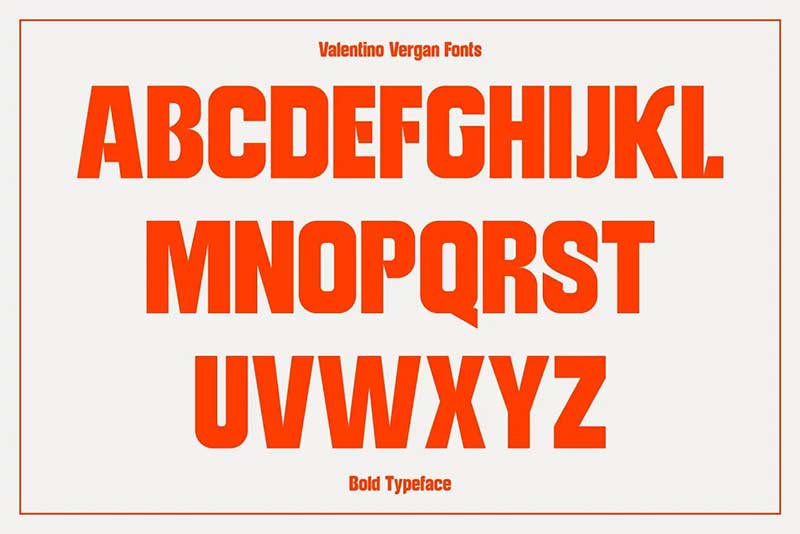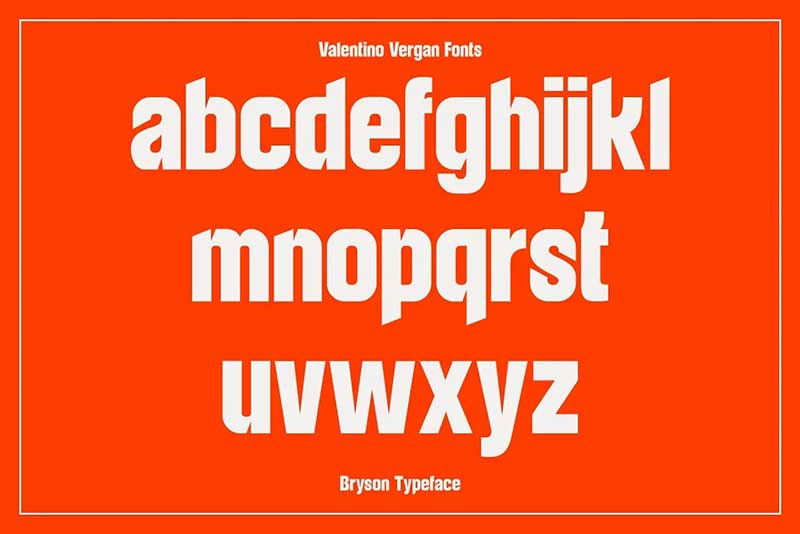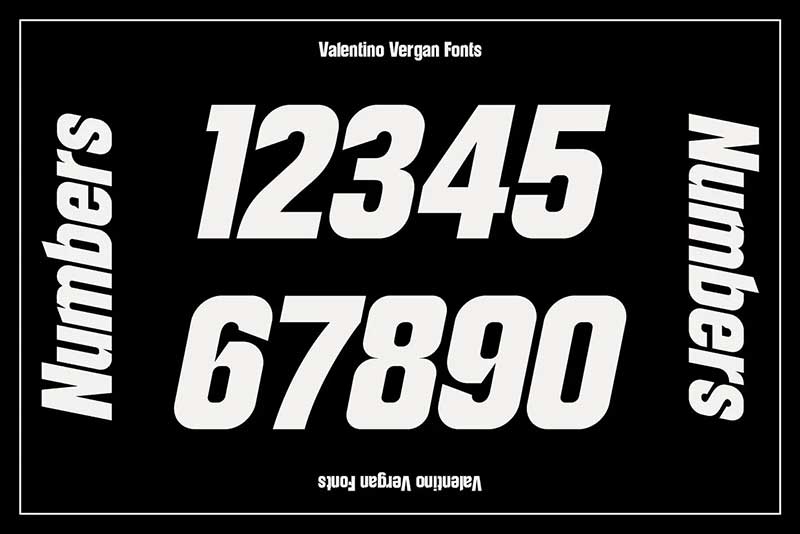
When it comes to typography, finding the right font can make all the difference in creating a visually stunning design. And if you’re looking for a font that effortlessly combines elegance and modernity, look no further than Bryson Font.
Why choose the Bryson font?
The Bryson font is crafted with a keen sense of style, offering a unique blend of simplicity and readability. The tight kerning and bold shapes contribute to its retro charm, making it an excellent choice for designers seeking a typeface that effortlessly combines modernity with a nostalgic touch.
Bryson’s ligatures add an extra layer of sophistication to your designs. These unique combinations of letters create a harmonious flow, enhancing the overall visual appeal of your text. The ligatures in this display font make it more than just a font; they transform it into a design element that elevates your project.
Endless Possibilities for Your Projects
Imagine your print materials adorned with the Bryson font — from posters to brochures. Its distinctive shapes and tight kerning make it perfect for catching the eye, ensuring that your print materials stand out in a crowded space.
In the digital realm, Bryson continues to shine. Its bold characters make headlines and banners pop up on websites, instantly drawing visitors’ attention. Whether you’re designing a landing page or creating social media graphics, Bryson’s retro charm adds a touch of uniqueness to your online presence.
For branding projects, Bryson can be a game-changer. Its bold, memorable style can help create a brand identity that resonates with your audience. From logos to taglines, this font adds a touch of flair that sets your brand apart.
In conclusion, the Bryson is more than just a typeface; it’s a design asset that brings character and distinction to your projects. Whether you’re aiming for a retro vibe or seeking a bold statement, Bryson delivers with style and versatility. Choose Bryson, and unlock the endless possibilities it offers for making your designs truly exceptional.